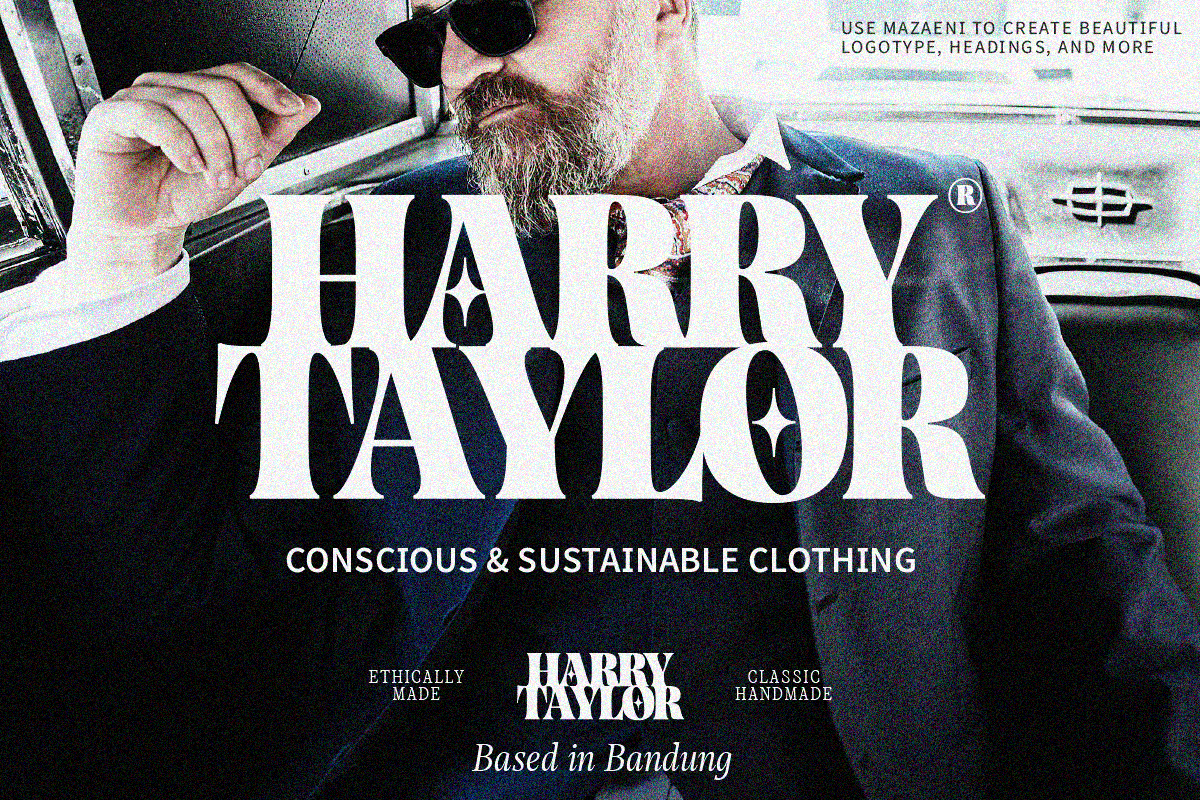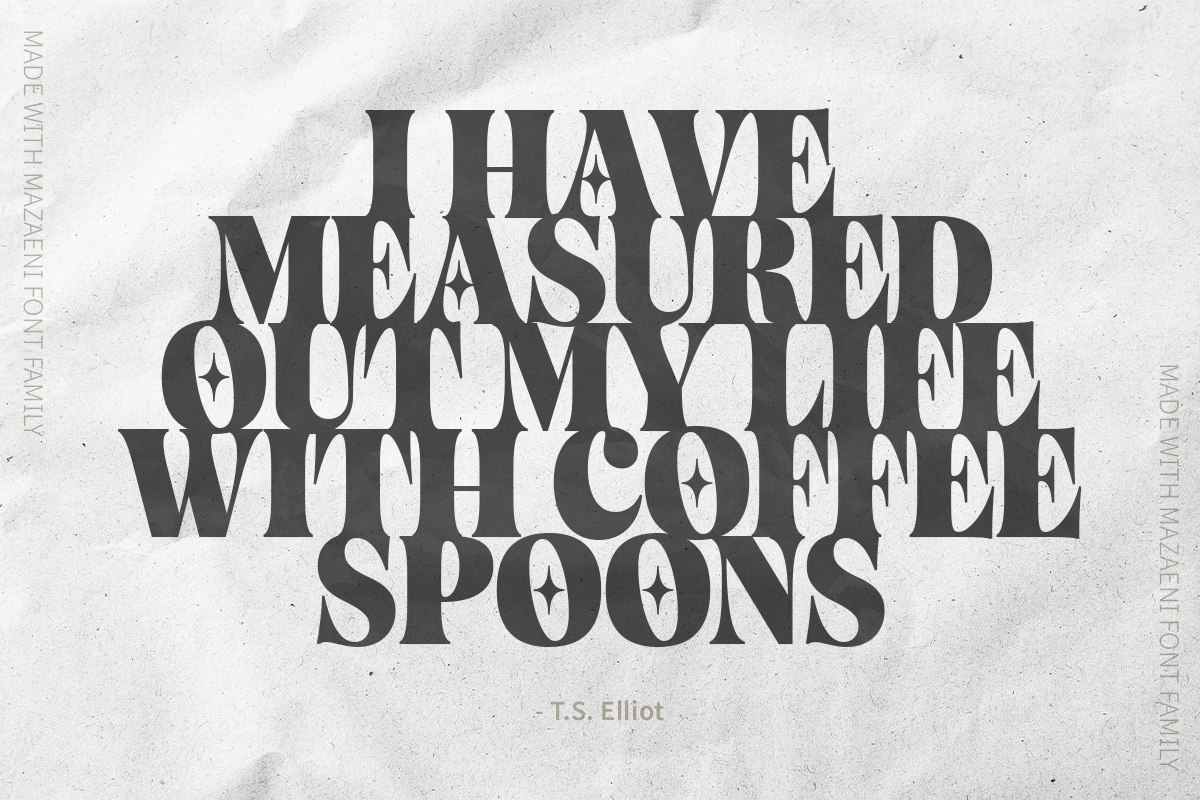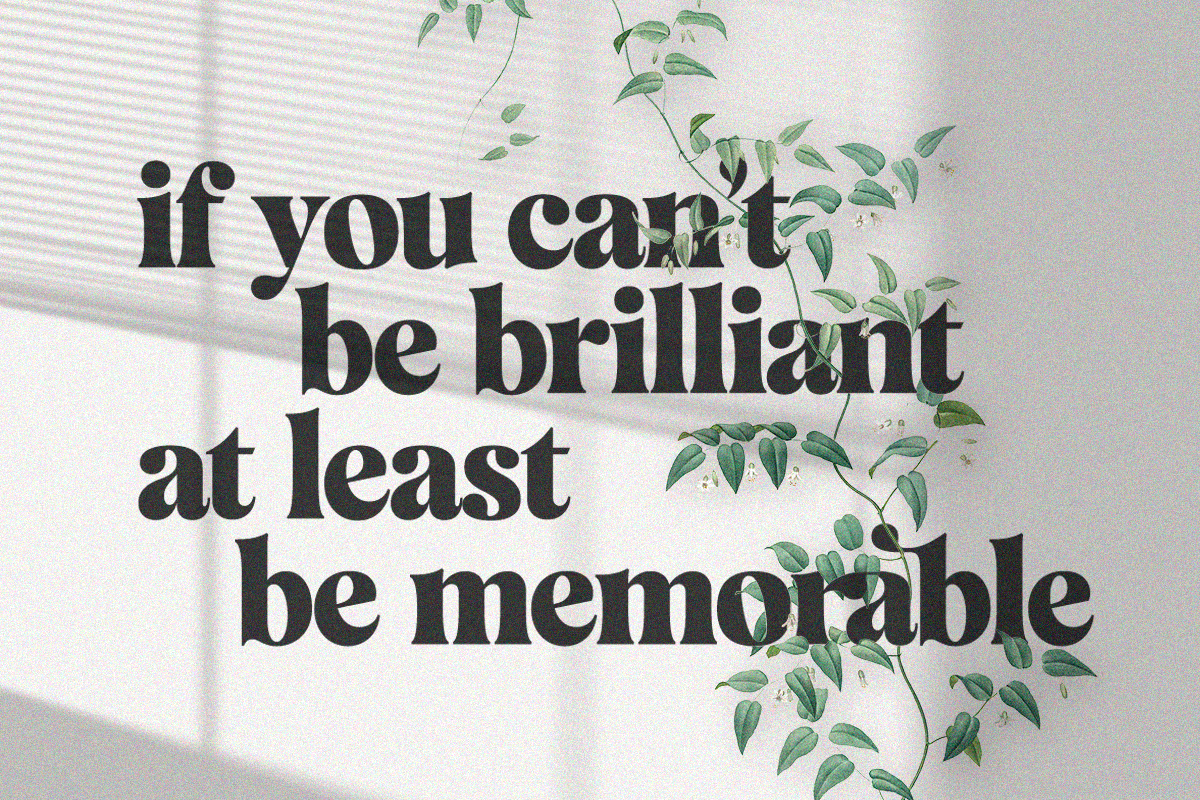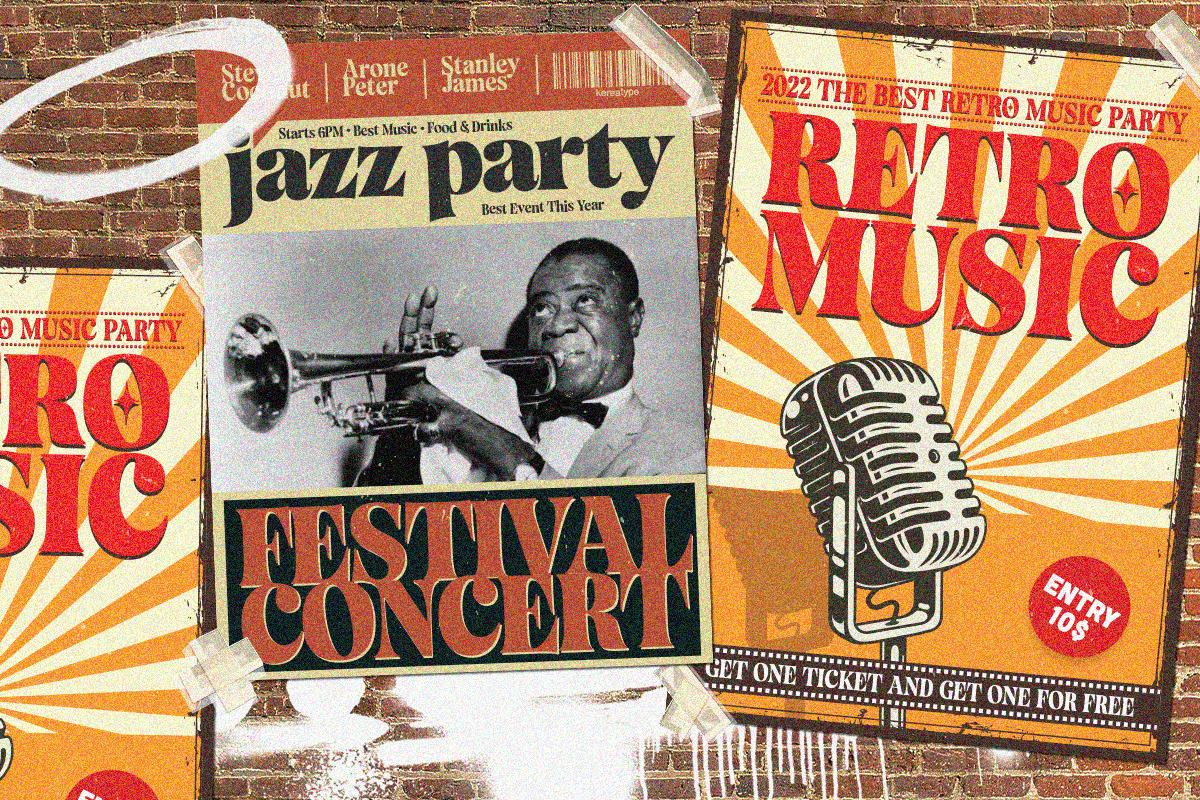
Mazaeni Serif Font
This is a bold serif font family that includes 5 Weight regular to Extra Black which is inspired by something simple, elegant, usable, and versatile.
Mazaeni is a daring and playful display typeface perfect for logotypes, posters, and editorial use. Includes wide language support, optional ligatures, OpenType alternates, and more.